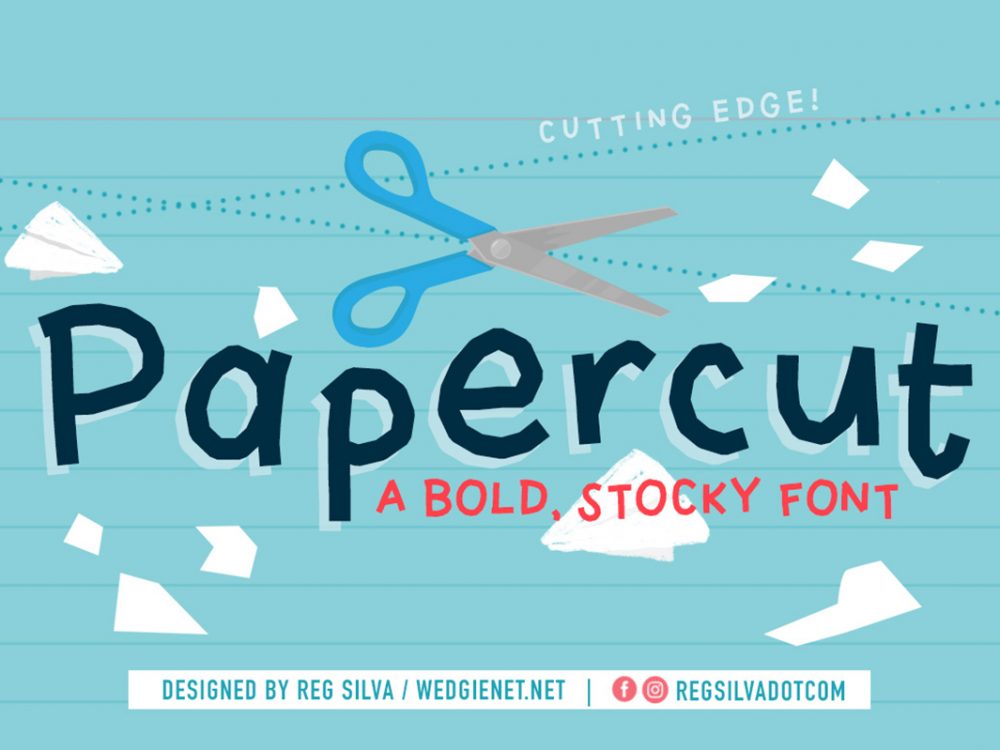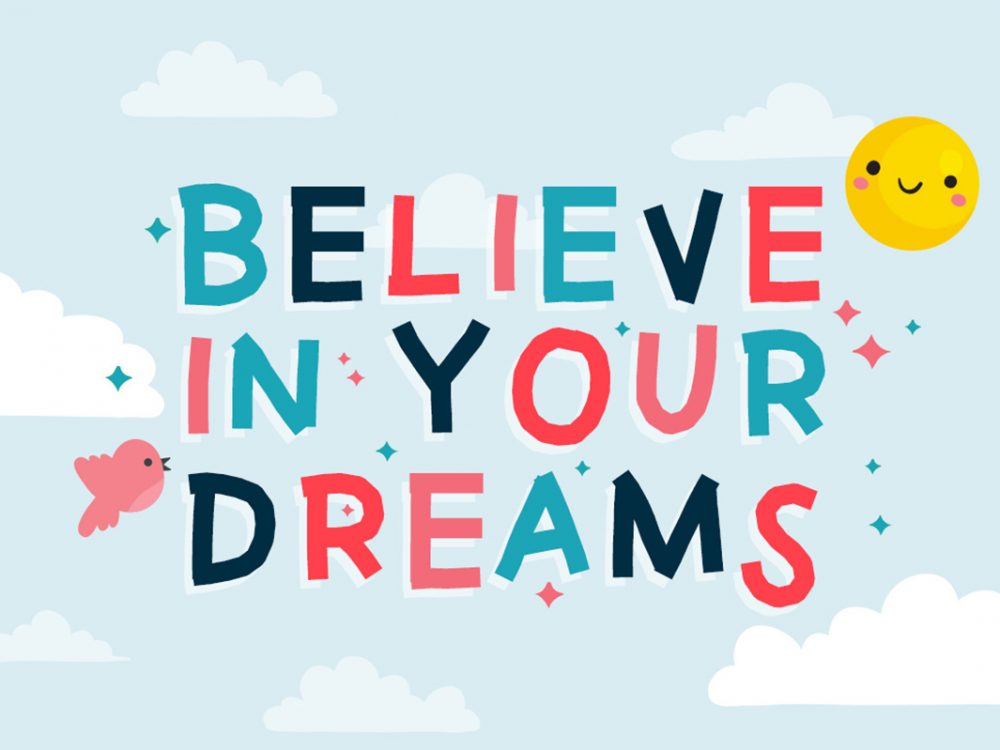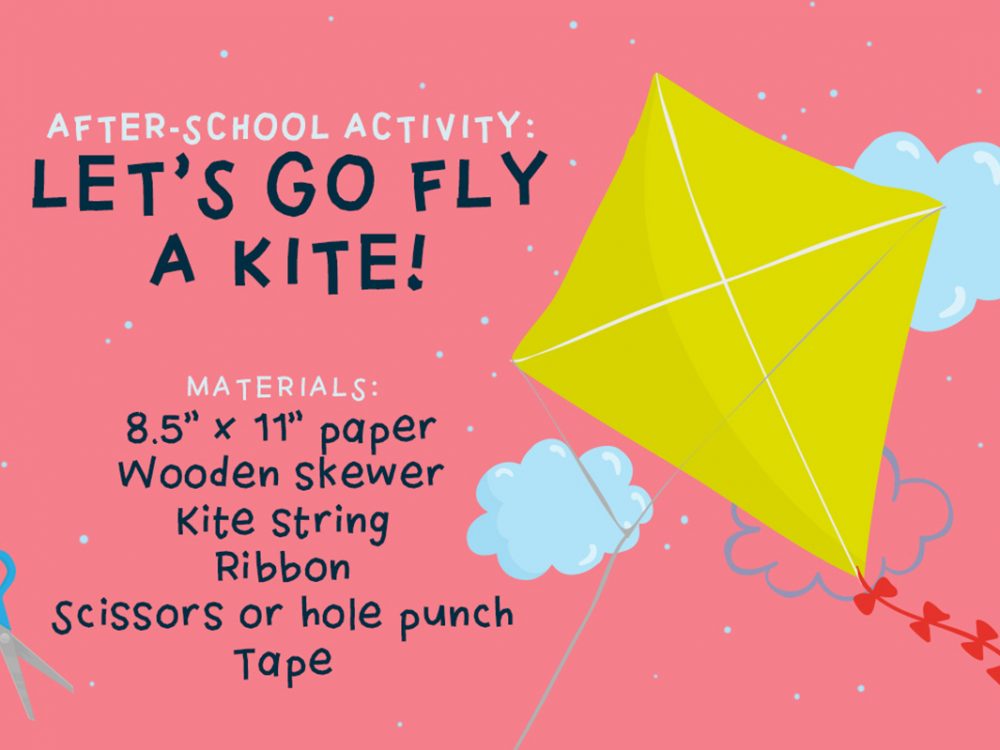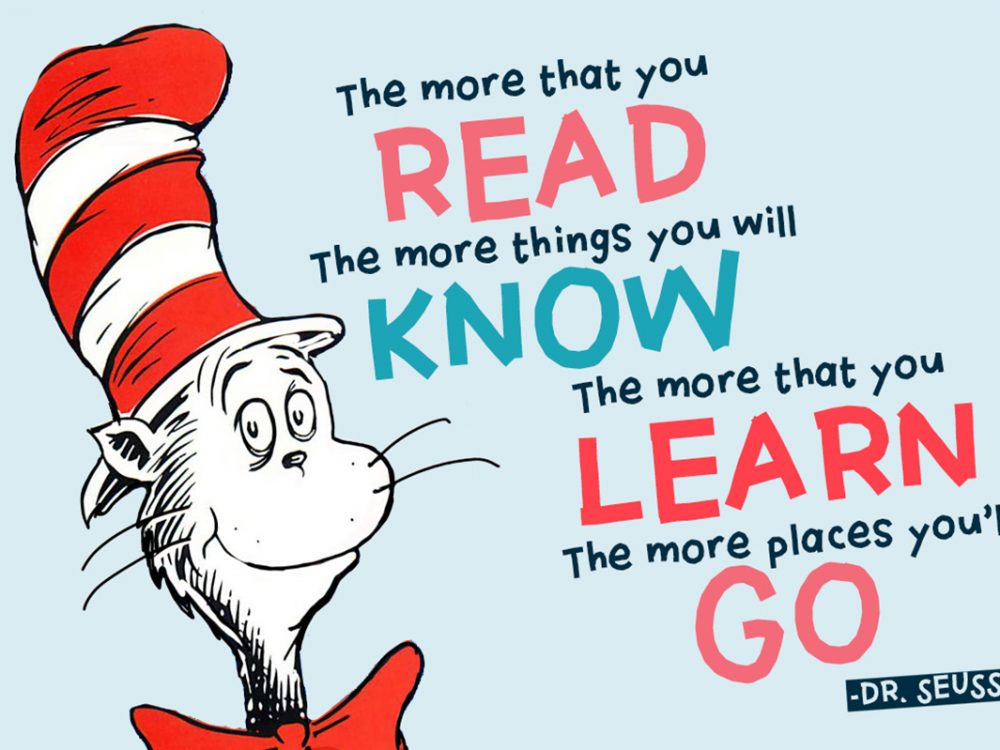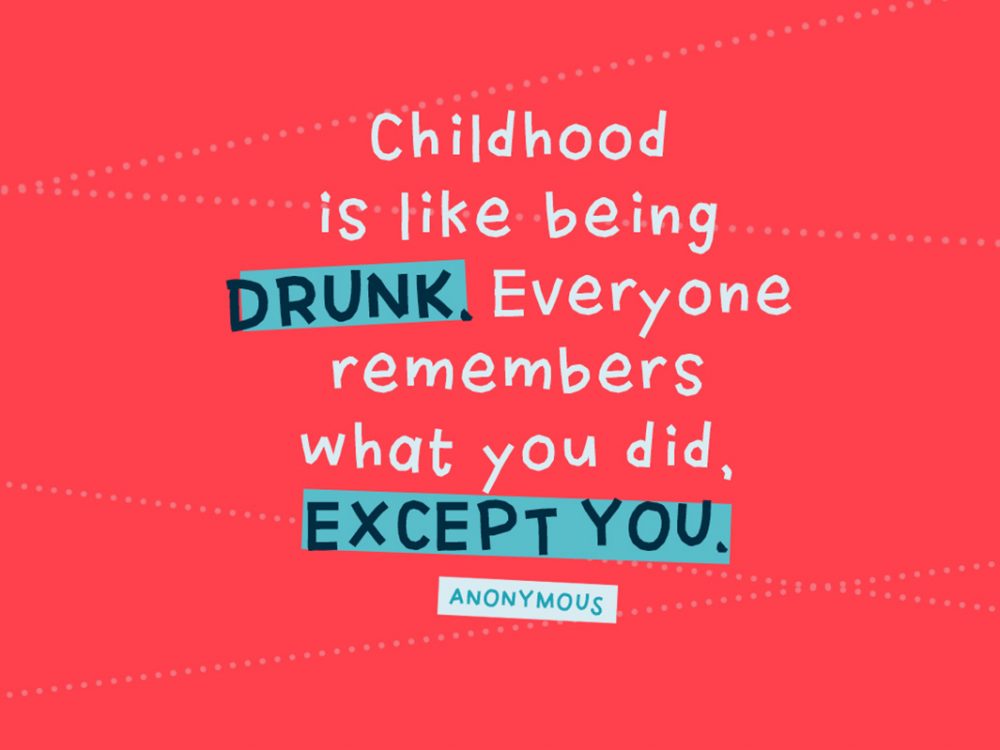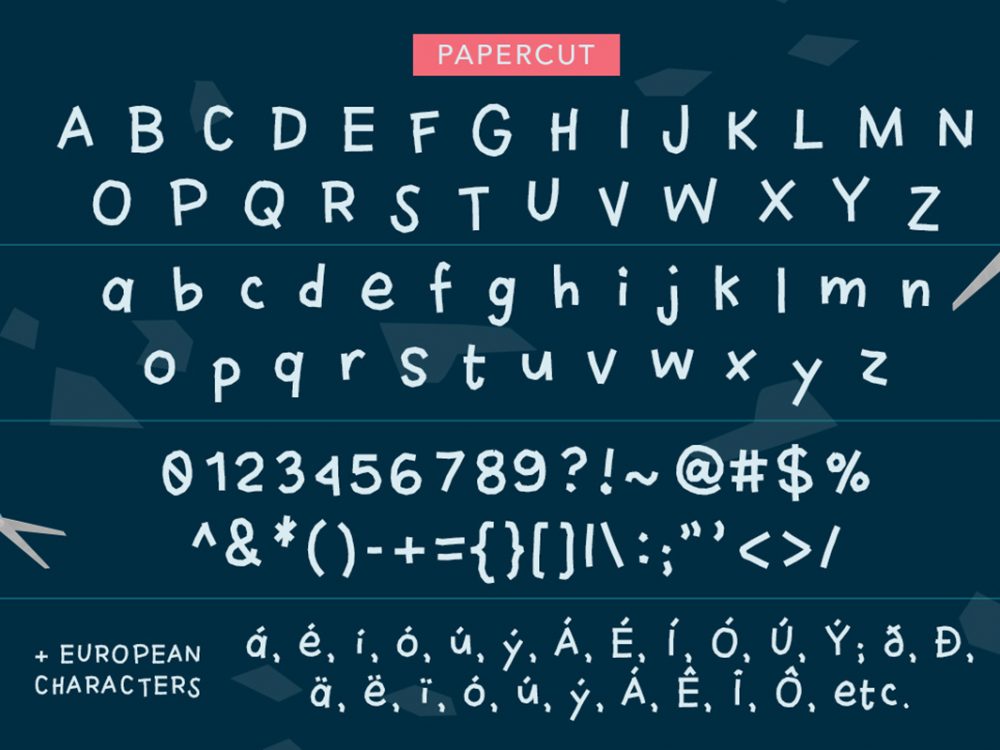
Papercut Display Font Demo
Papercut Display Font Demo is a simple and interesting font that imitates paper cutouts and creates a children’s holiday atmosphere. This font is perfect for a variety of design projects that need a playful, childish font. You can use this font to create posters, invitations, cards, branding, flyers, prints, and more. If you wish to access more features and use them for commercial work please buy the full version.